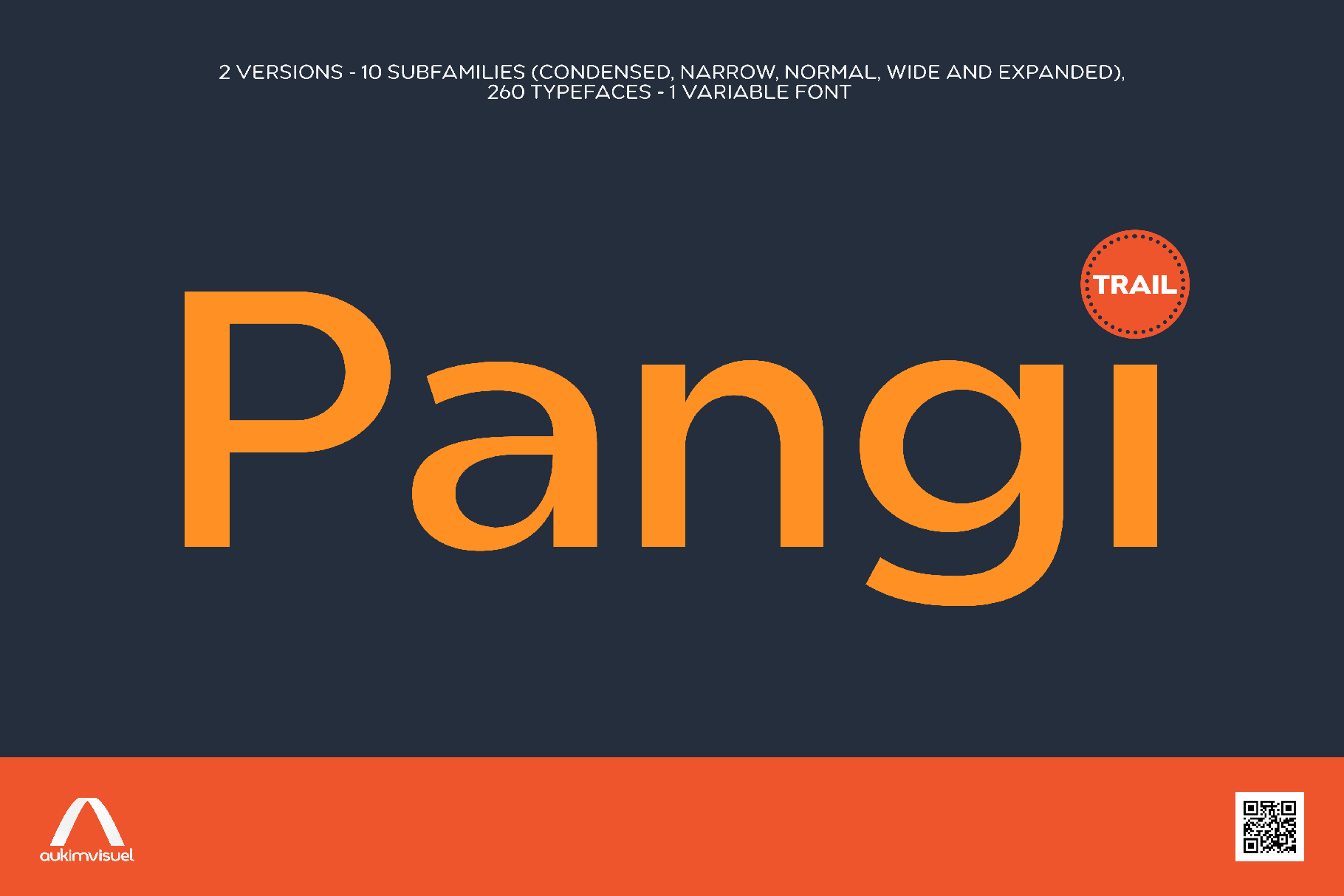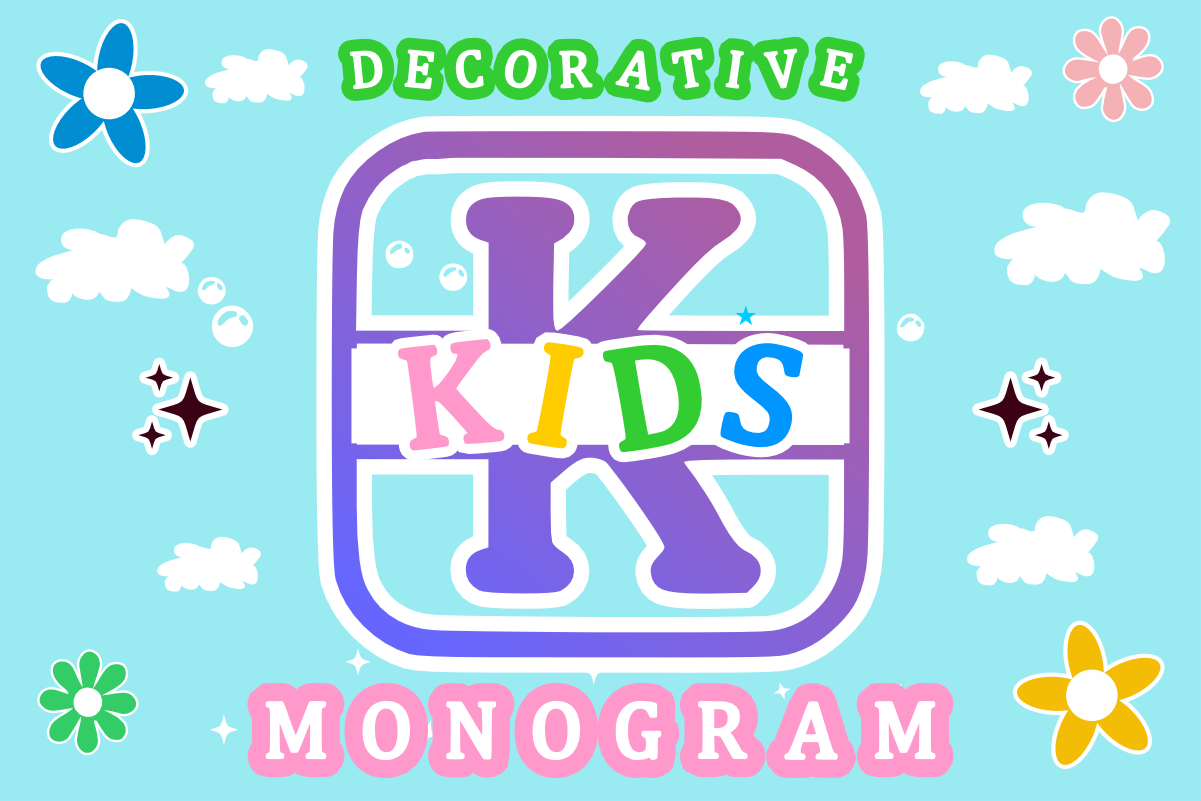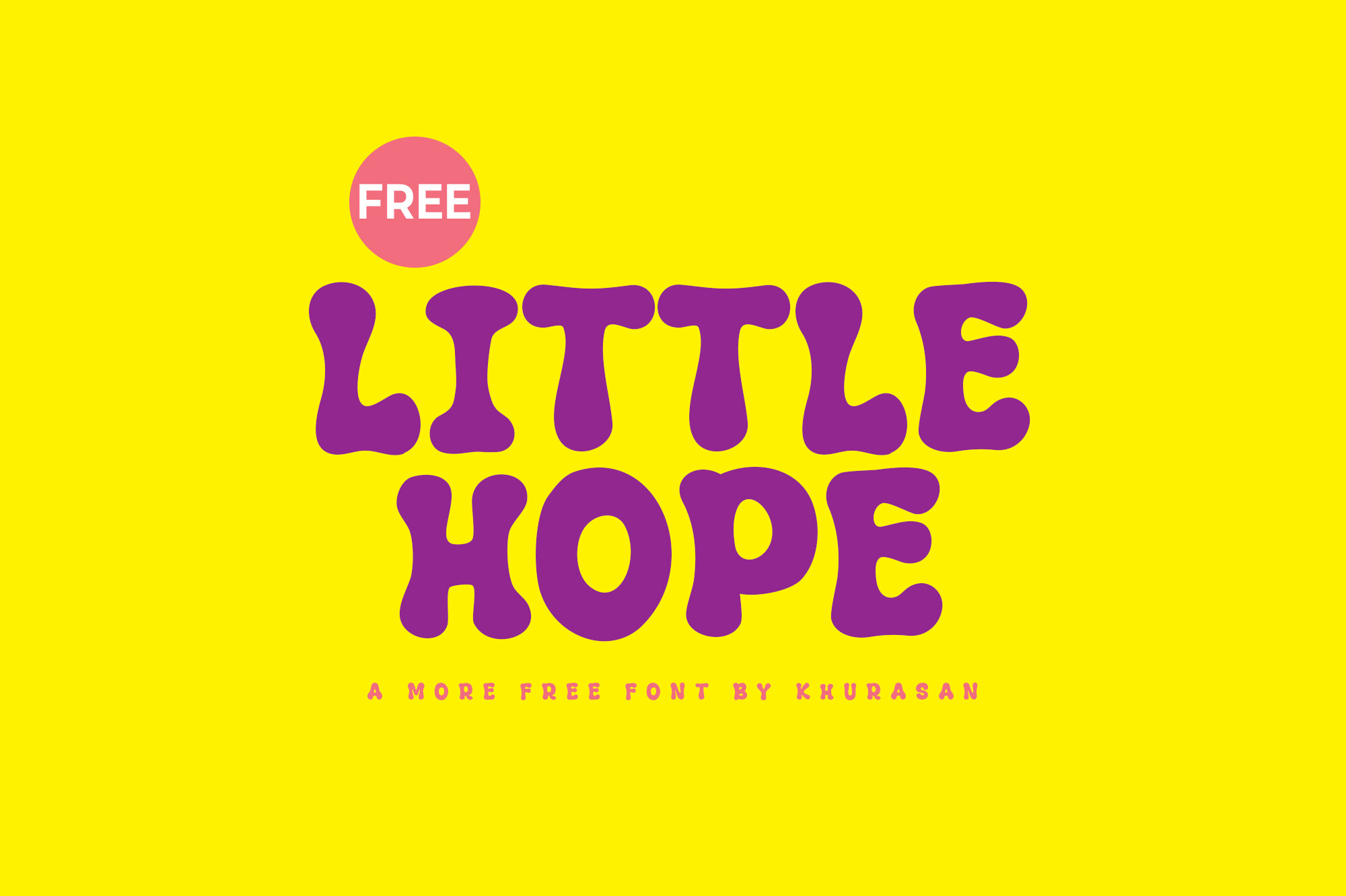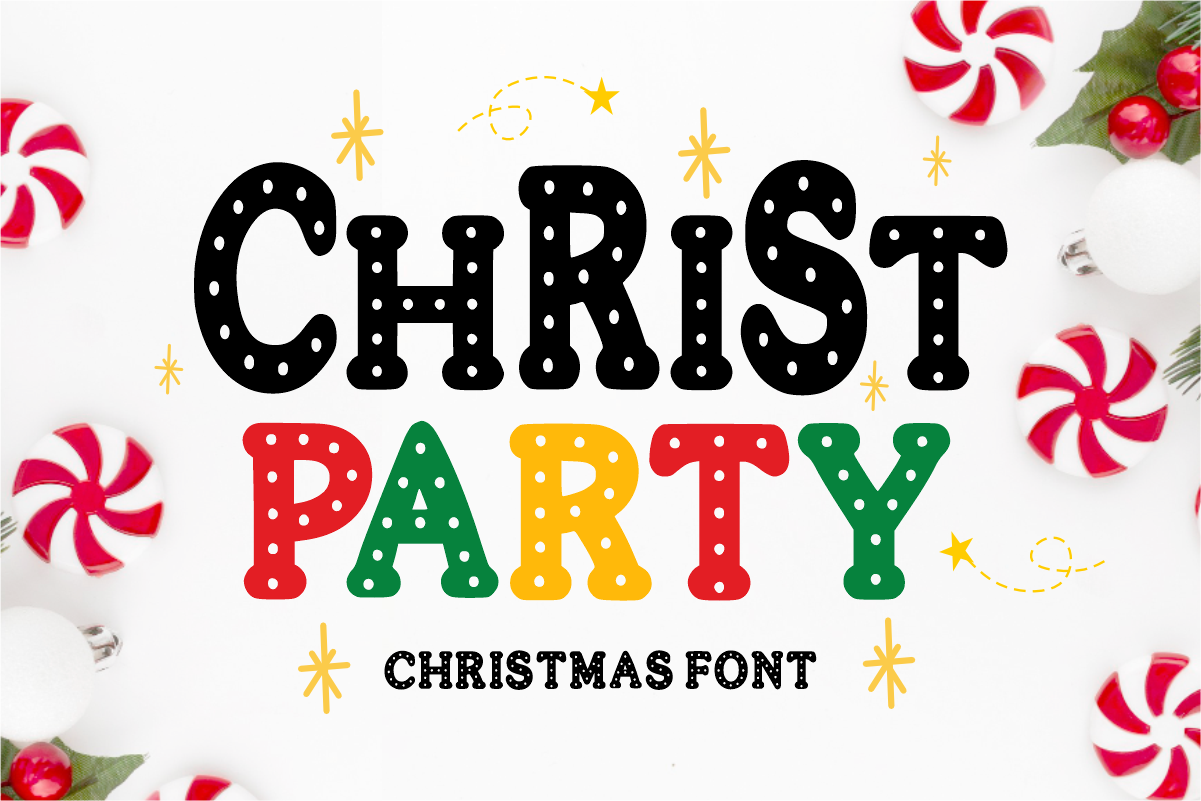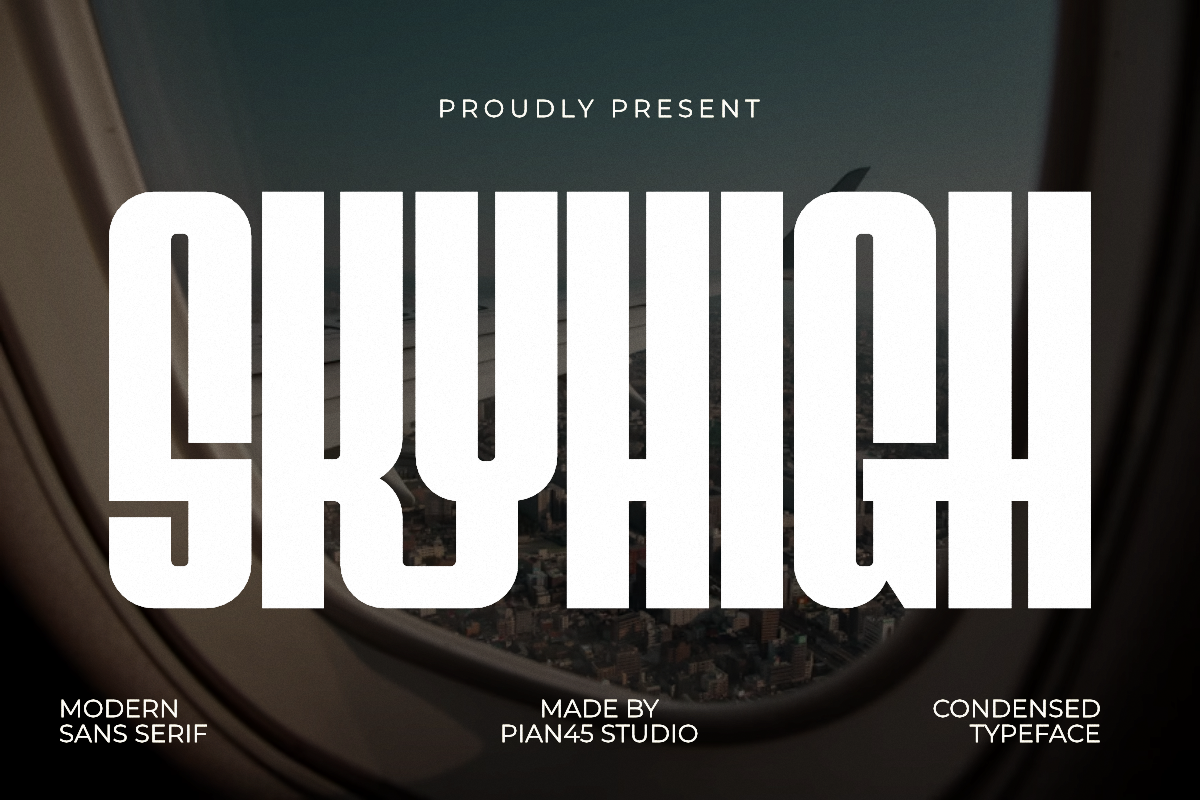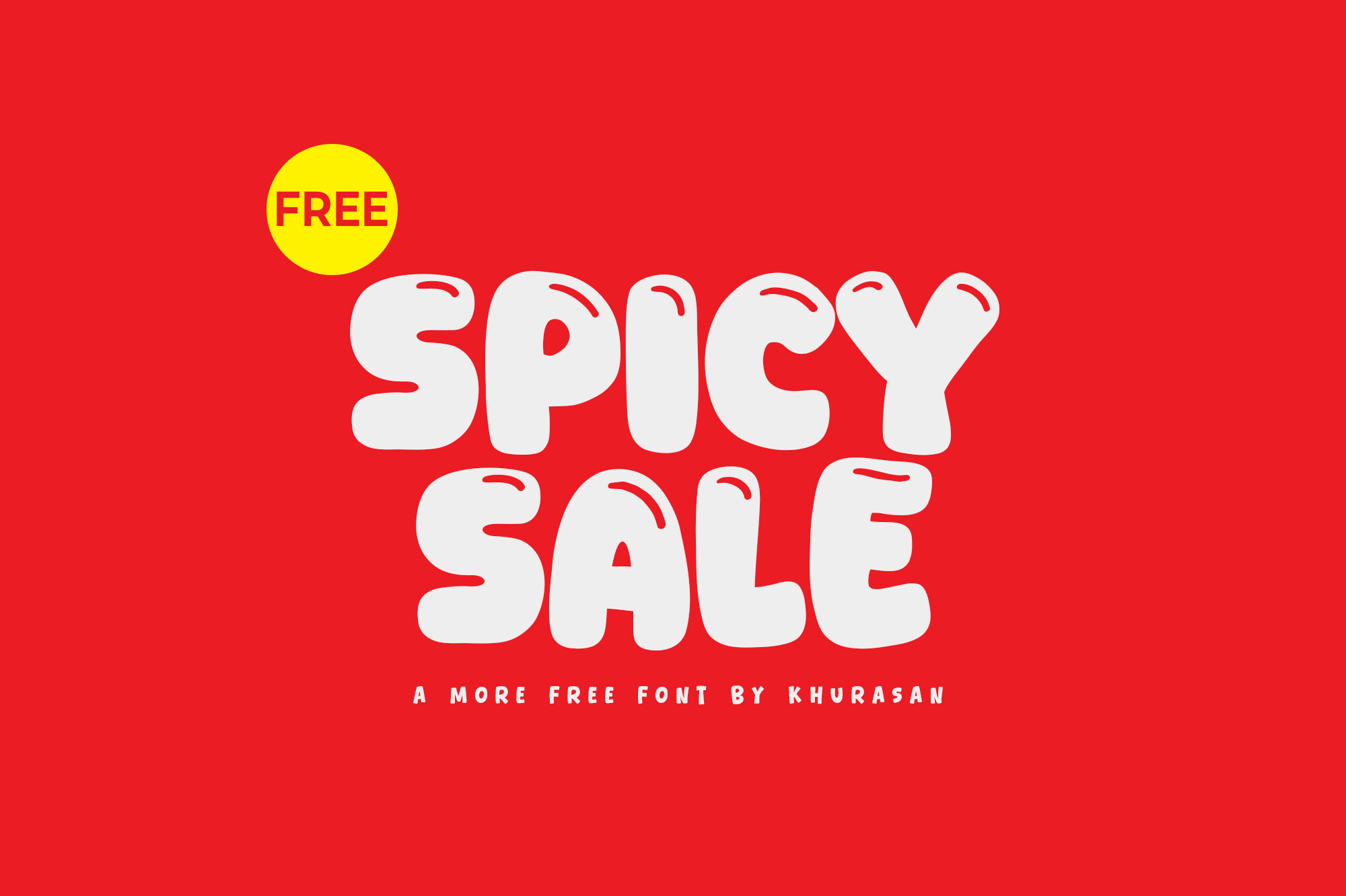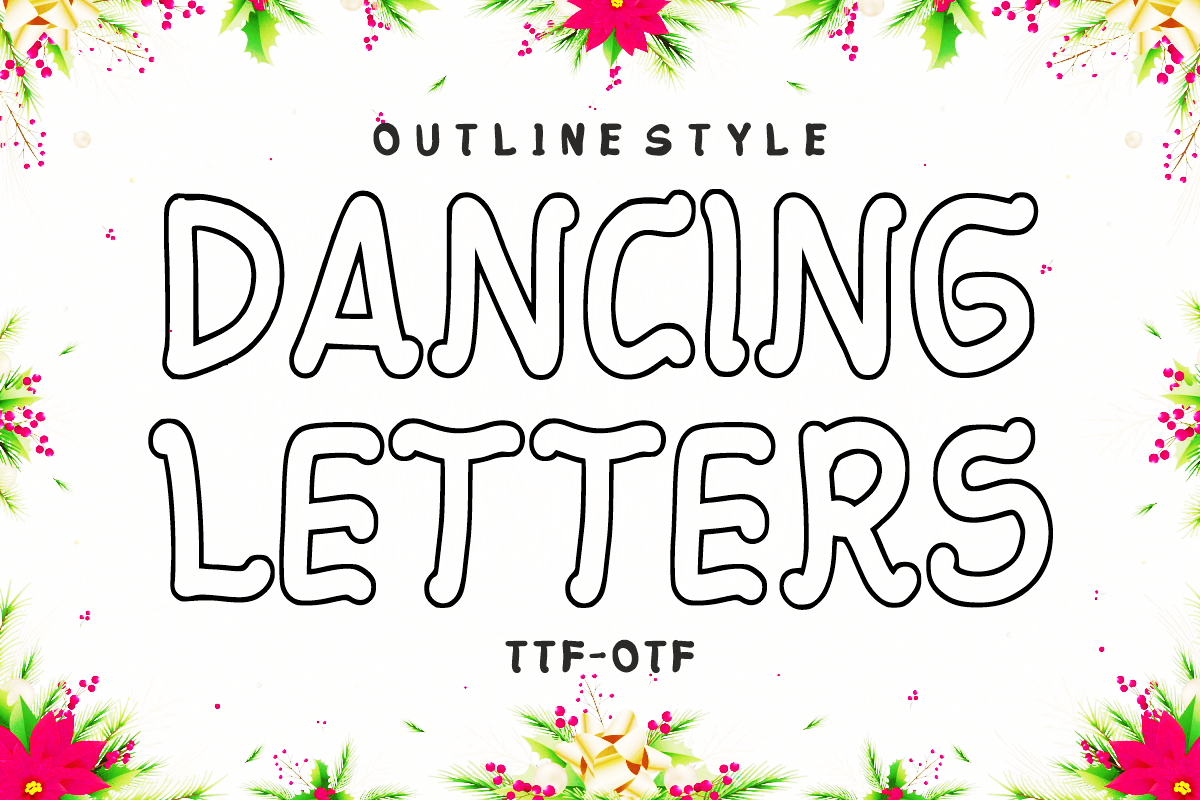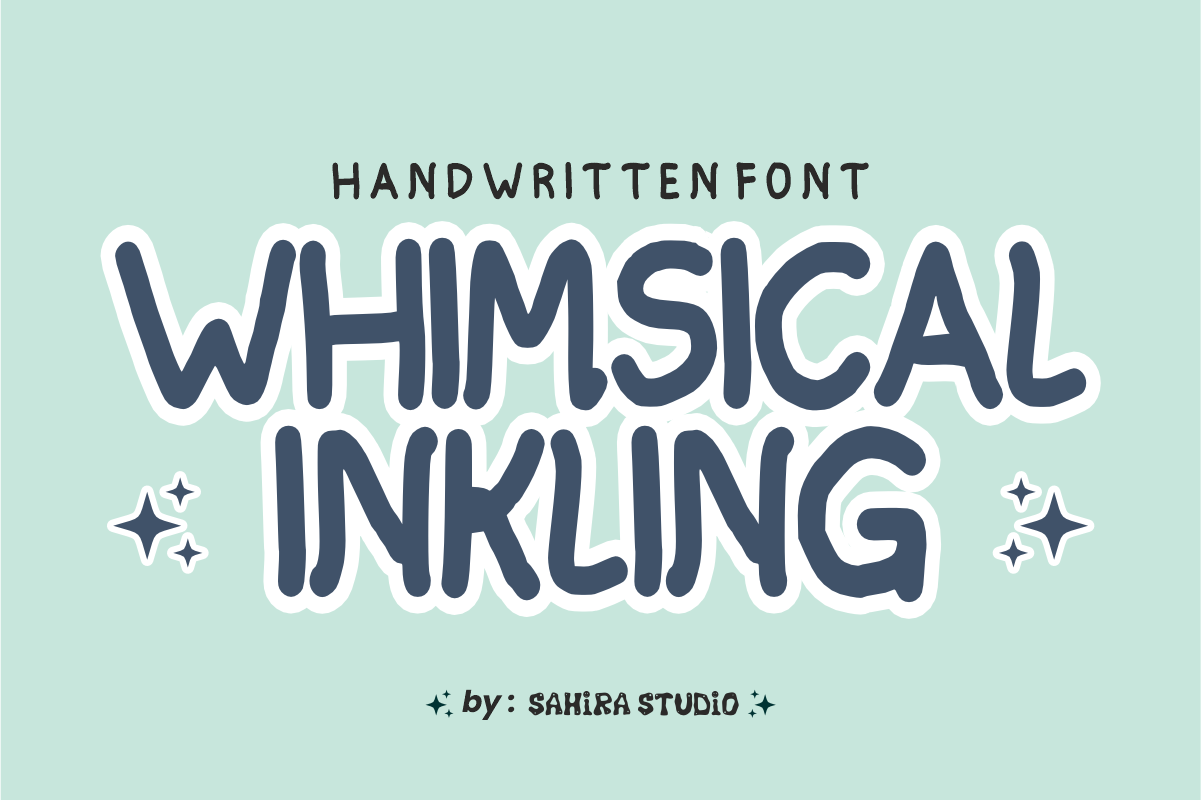
Free Fonts Friday December 5th
Welcome to this week's edition of Free Fonts Friday! This post features an exciting collection of free fonts available for commercial use, perfect for designers looking to elevate their projects. Discover the charming handwritten style of Alaska and Delaware, the modern geometric elegance of Pangi, and the playful vibes of Kids Monogram and Dancing Letters. For those in search of a festive touch, Christ Party brings holiday cheer, while Skyhigh offers a sleek contemporary look. Little Hope and Spicy Sale add delightful flair to various designs, making this selection a must-have for any creative endeavor. Explore these fantastic fonts and let your imagination soar!
Alaska
Alaska is a beautifully crafted handwritten font that radiates charm and elegance. Each letter is uniquely designed, ensuring that your logos, branding, and quotes capture attention effortlessly. Ideal for wedding invitations, journals, greeting cards, and product packaging, this font adds a personal touch to any design. Whether you're creating content for social media or crafting heartfelt messages, Alaska’s delightful style will elevate your projects, making them memorable and visually appealing. Embrace the warmth and creativity of this timeless font and bring your designs to life!
Pangi
Discover the Pangi font, where geometric precision meets modern design. This stylish font family is built with circles, squares, and lines, creating a minimalist yet adaptable typeface. With two distinct styles, Basic and Rounded, and 10 subfamilies, Pangi offers an impressive total of 260 fonts. Its extensive glyph set includes over 2806 characters, ensuring versatility across various languages and applications, from posters to UI designs. Ideal for graphic designers, Pangi seamlessly combines aesthetic appeal with practical functionality, making it an essential addition to your typography toolkit.
Delaware
Delaware is an enchanting handwritten font that brings a sense of warmth and personality to your projects. Each letter is crafted with care, making it an ideal choice for creating eye-catching logos, branding elements, and heartfelt quotes. This font's unique charm adds a personal touch, perfect for wedding invitations, journals, greeting cards, and product packaging. Whether you're designing for social media or printed materials, Delaware's lovely style elevates your creative endeavors and ensures your designs stand out for all the right reasons. Let this delightful font inspire your next project!
Kids Monogram
Kids Monogram is a whimsical and playful decorative font that’s perfect for creating engaging monograms and vibrant designs for children's products. Each rounded capital letter is encased in a charming square frame, making it ideal for layering with bright colors. This font is excellent for personalizing nursery decor, apparel, backpacks, and birthday banners. Its delightful aesthetic adds a fun flair to educational materials and gifts. With Kids Monogram, you can effortlessly create eye-catching, customizable designs that resonate with children and their parents alike, making every project a joy to create!
Little Hope
Little Hope is a charming and modern display font that adds a delightful touch to any project. Ideal for posters, logos, magazines, and book covers, this font is versatile and easy to integrate into various designs. Its playful character makes it perfect for creating standout pieces that catch the eye. Whether you're working on a creative project or a personal endeavor, Little Hope will bring your ideas to life with its whimsical style, ensuring that your designs are both memorable and visually appealing. Embrace your creativity with this lovely font!
Christ Party
Meet "Christ Party," a joyful and festive font designed for all your Christmas-themed projects! This modern typeface is perfect for creating cheerful logos, holiday invitations, and seasonal decorations. Its playful design enhances any festive atmosphere, making it a delightful addition to your font collection. Whether you're designing for Christmas cards, children's t-shirts, or holiday crafts, this free font will bring a touch of merriment and creativity to your work. Let your imagination flourish with "Christ Party" and create memorable designs that spread joy!
Skyhigh
Skyhigh is a striking Ultra Condensed Sans Serif font that boasts a dramatic vertical height and modern cut-out details. This font is perfect for high-fashion branding, minimalist posters, and architectural projects that require a bold visual statement. Offering all-caps letters with subtle ligatures, Skyhigh delivers a sophisticated and professional aesthetic for editorial layouts and magazine titles. Its PUA encoding allows for effortless access to all glyphs and swashes, making it easy to customize your designs. Elevate your projects with the upscale flair of Skyhigh!
Spicy Sale
Spicy Sale is a delightful and modern display font that brings a lively touch to your designs. Perfect for posters, logos, magazines, and book covers, this font is versatile and easy to pair with various projects. Its charming style ensures that your creative ideas stand out, whether for promotional materials or personal projects. With Spicy Sale, you can create attention-grabbing designs that resonate with your audience and leave a lasting impression. Let this enchanting font inspire your creativity and elevate your projects to new heights!
Dancing Letters
Dancing Letters is a whimsical Outline Display Font that embodies fun and creativity. Its chunky, rounded letterforms and hand-drawn outline style add an exciting flair to any design, making it perfect for children's books, casual holiday posters, and playful branding. The font’s irregular baseline gives the impression of movement, making your text come alive. Ideal for DIY crafts, stickers, and coloring pages, Dancing Letters invites personalization with its outline structure, allowing for vibrant fills with colors and patterns. Let your imagination dance with this delightful font!